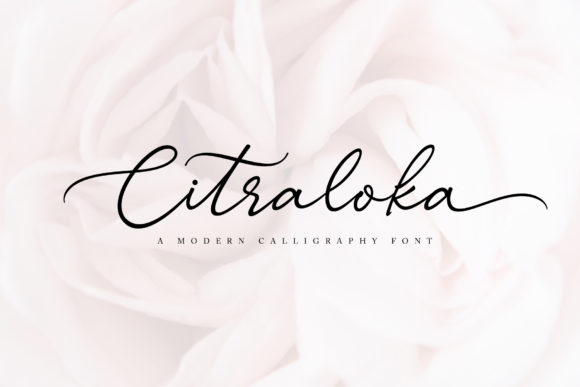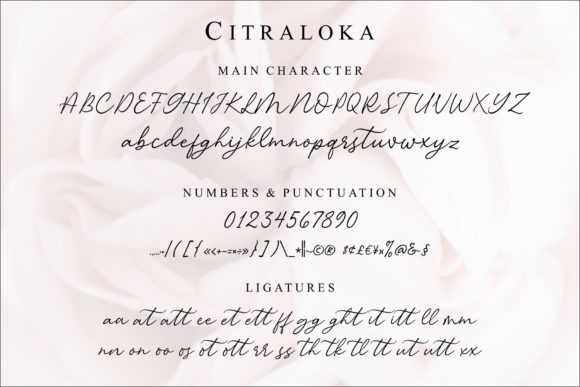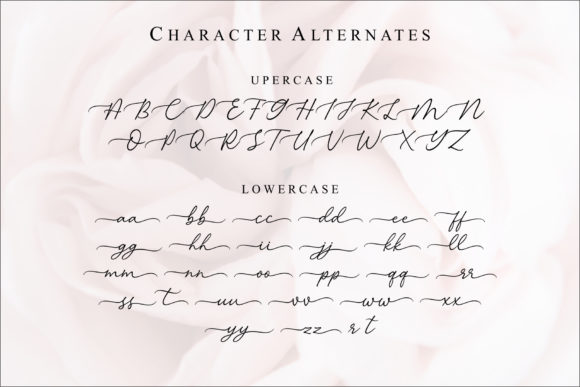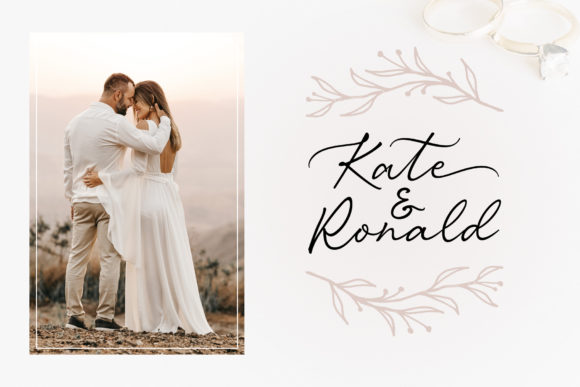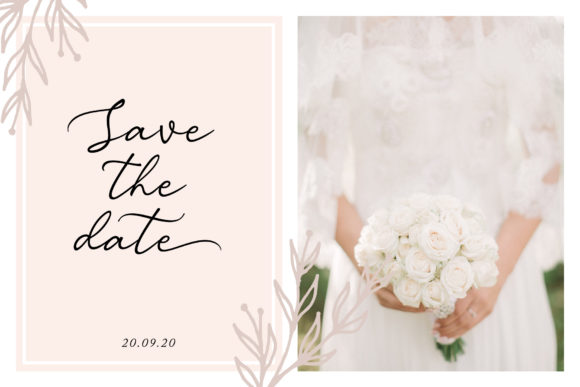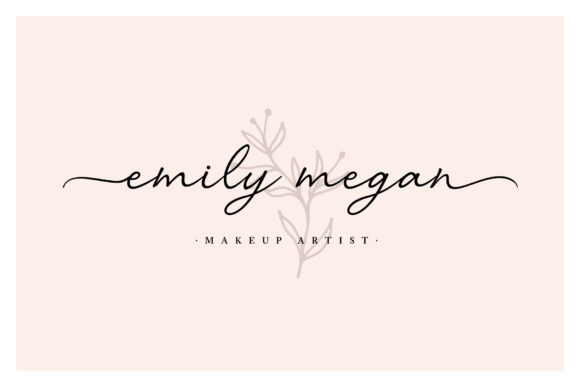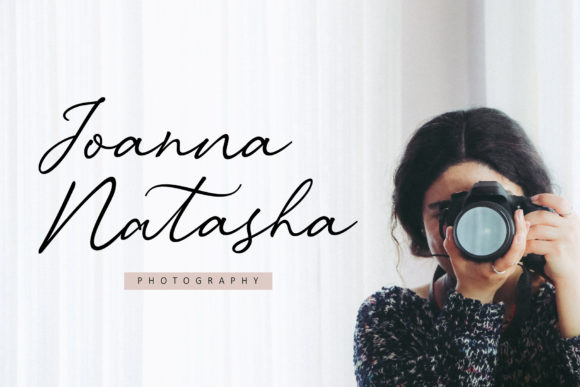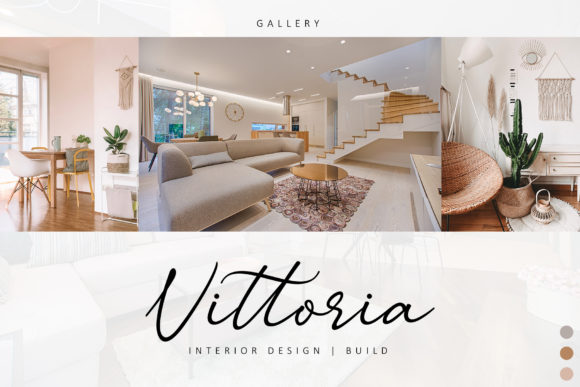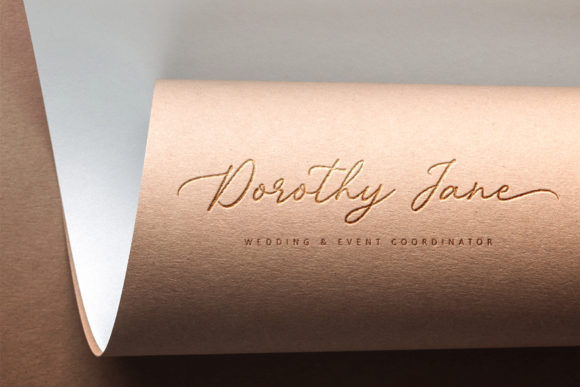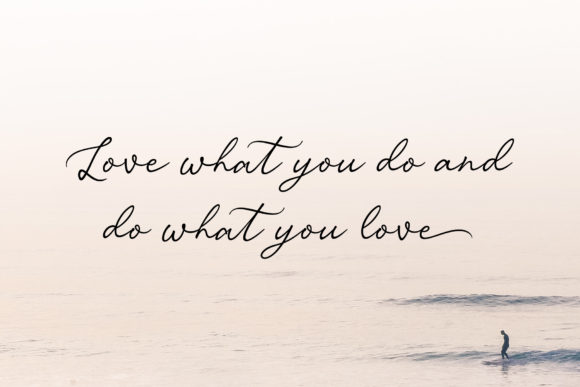
Citraloka Font
Citraloka is a gorgeous calligraphic script with light and playful swashes. Ignite your creativity with this authentic handwritten font!